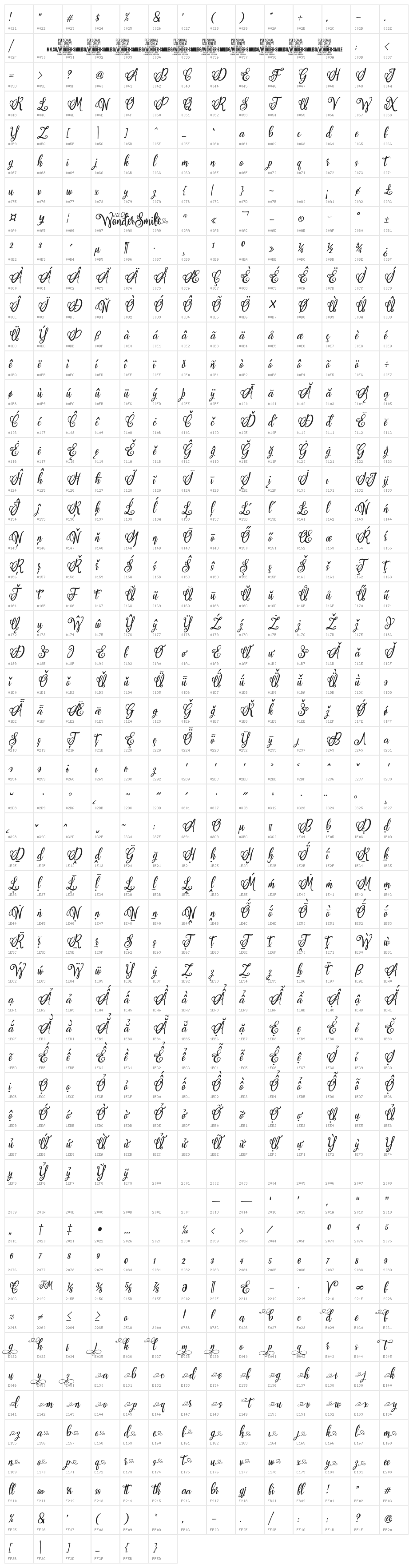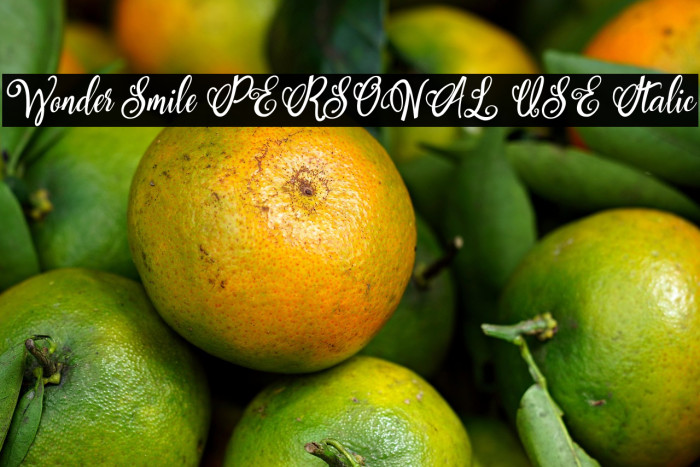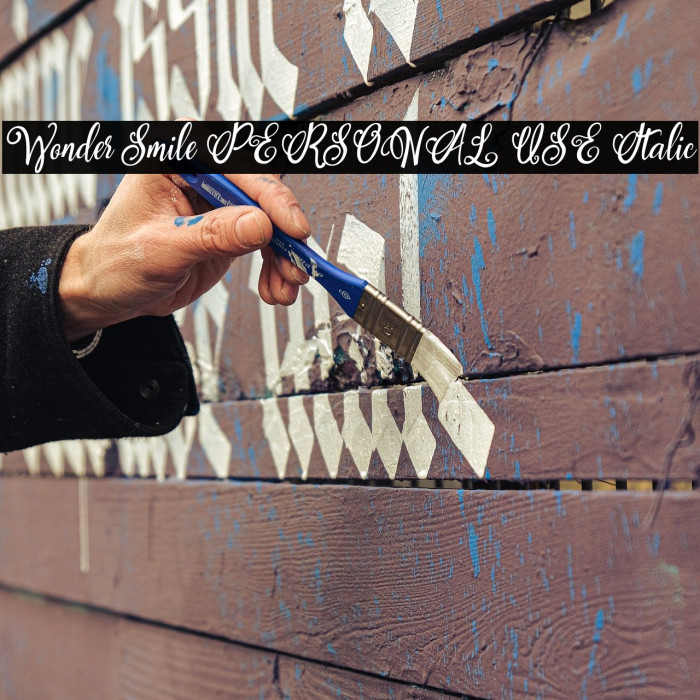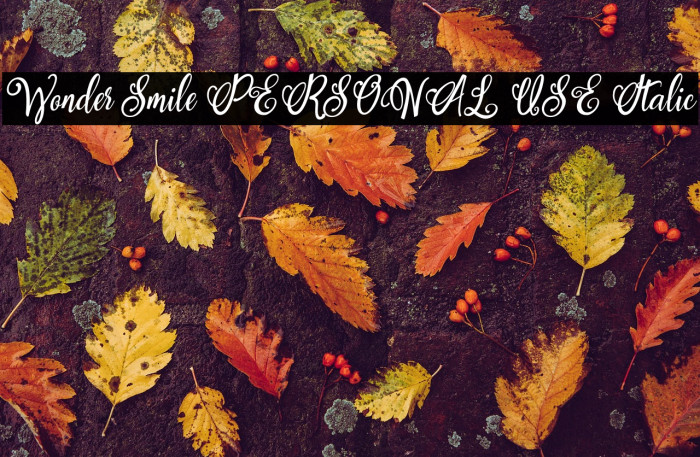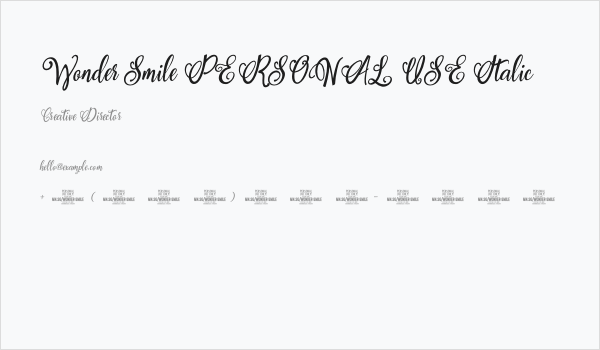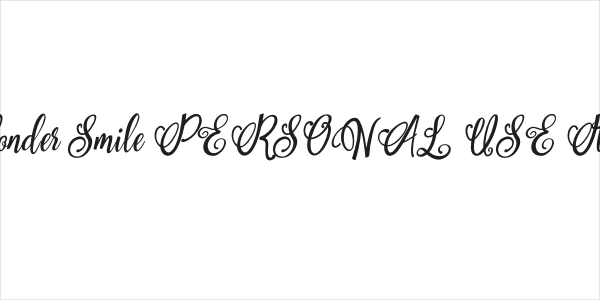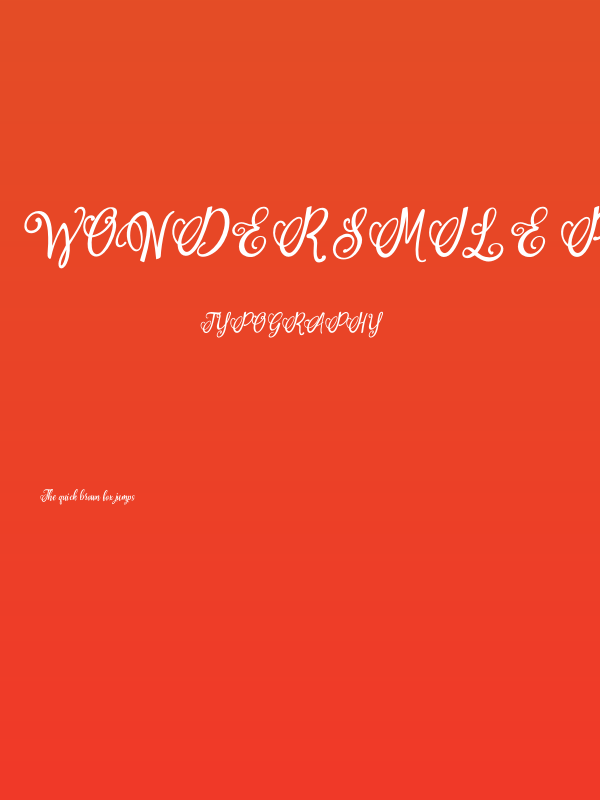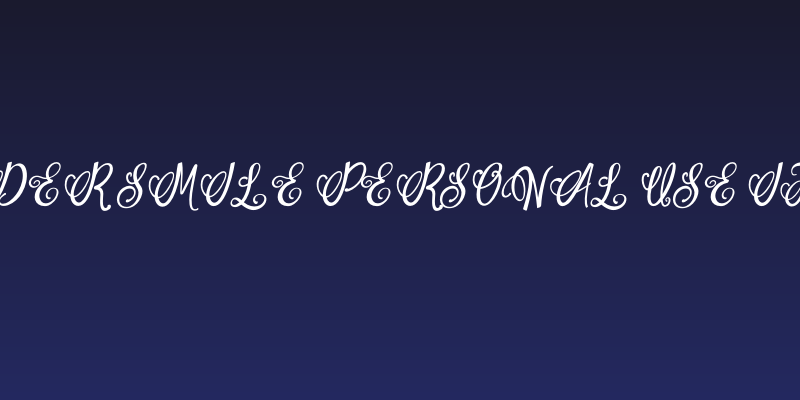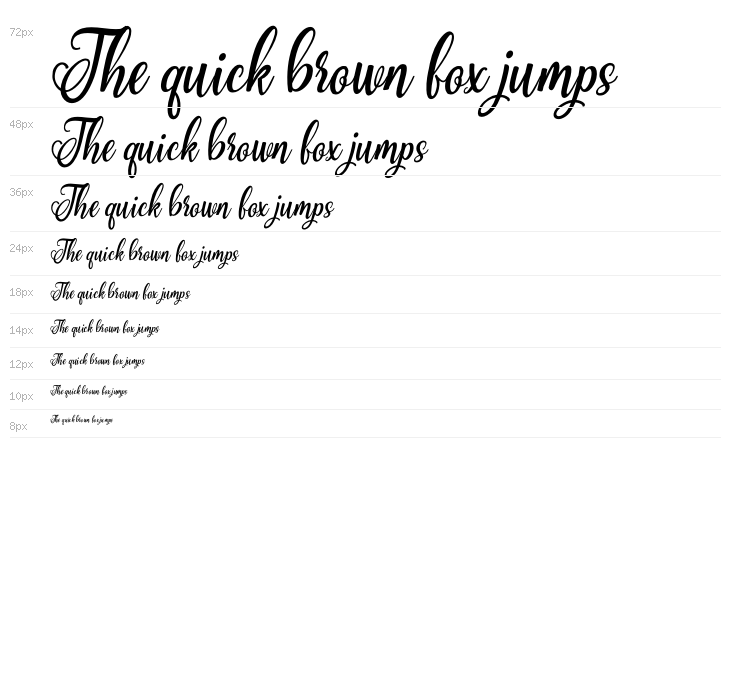
Wonder Smile PERSONAL USE Italic Font
Wonder Smile PERSONAL USE Italic Description
This font features an elegant and flowing script style, characterized by its cursive and connected letterforms. The uppercase letters are ornate, with intricate loops and swirls that add a touch of sophistication and flair. The lowercase letters maintain a consistent flow, enhancing readability while preserving the decorative nature. The font includes a complete set of numerals and special characters, each designed to complement the overall aesthetic. Its italic nature adds a sense of movement and grace, making it suitable for projects that require a personal and artistic touch.